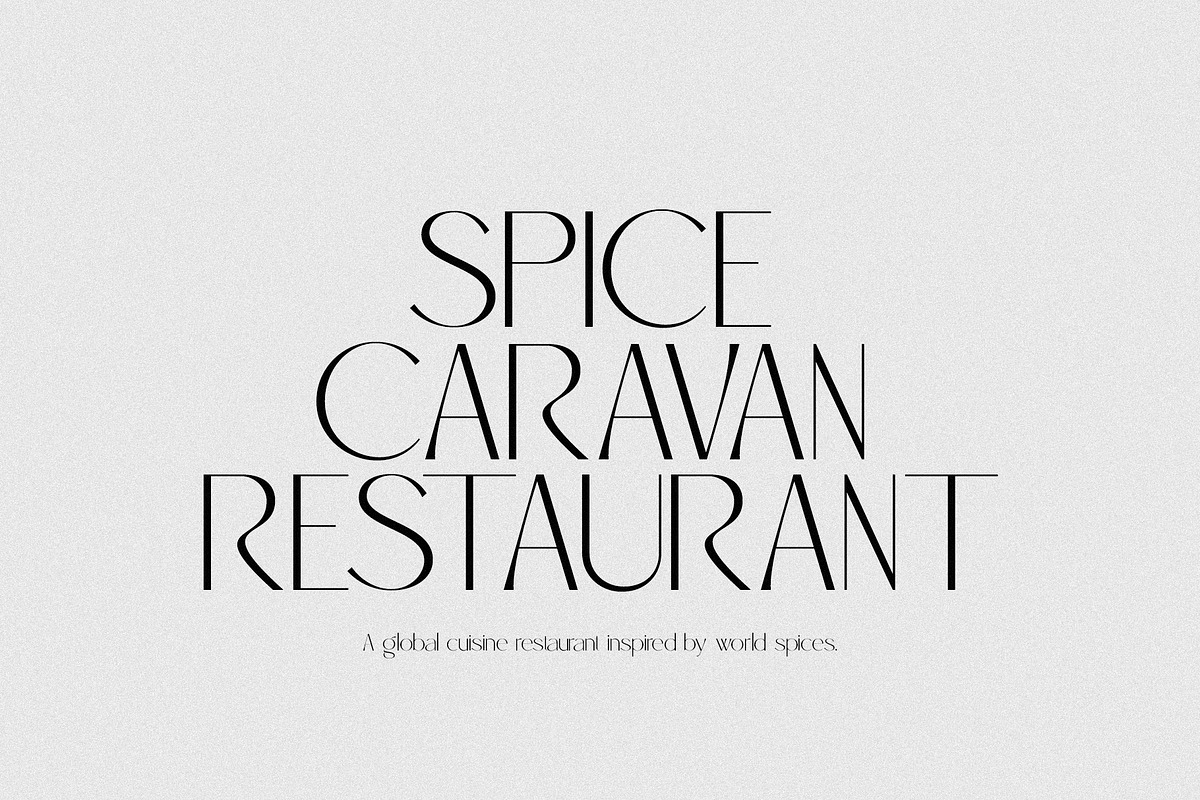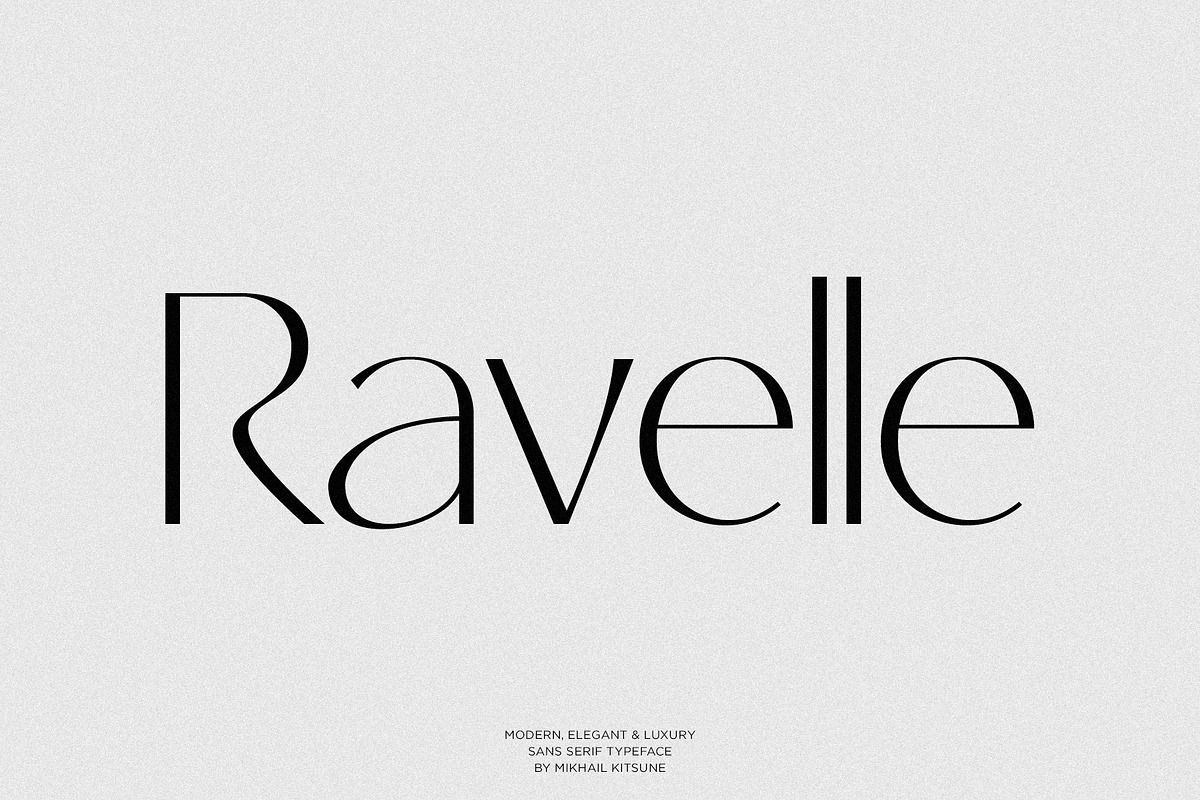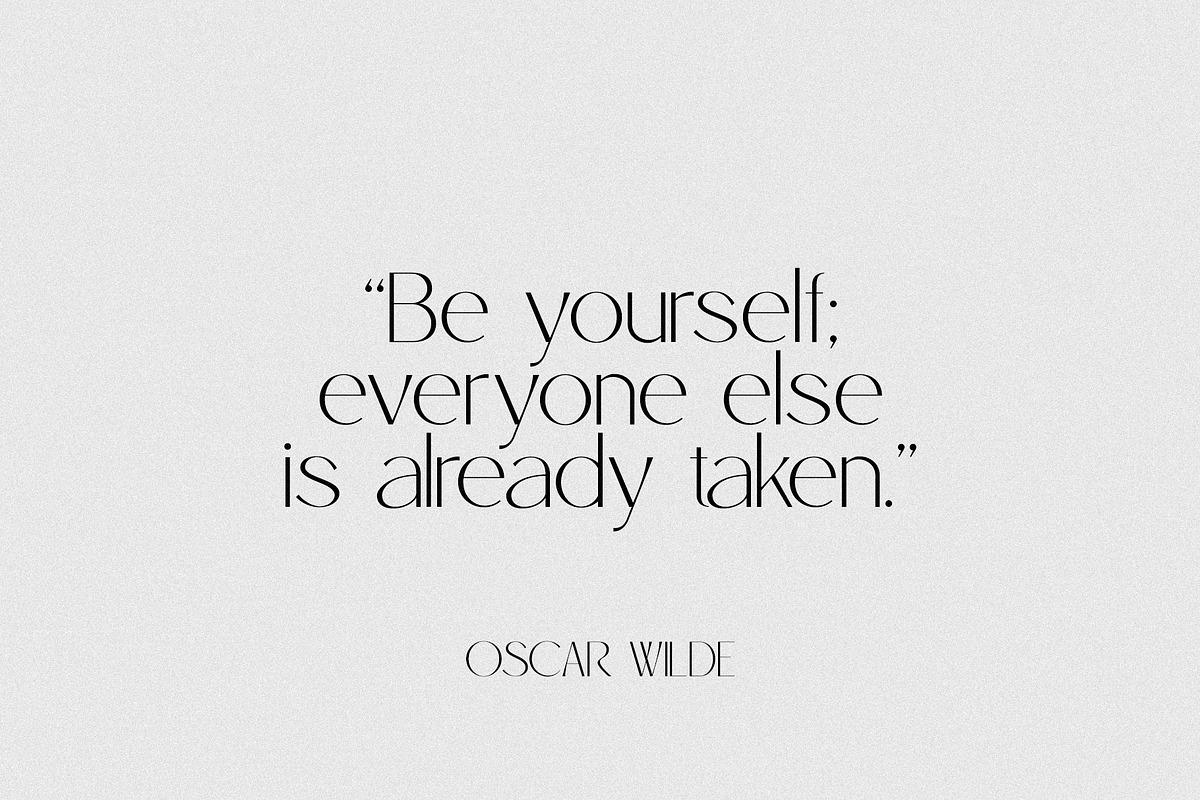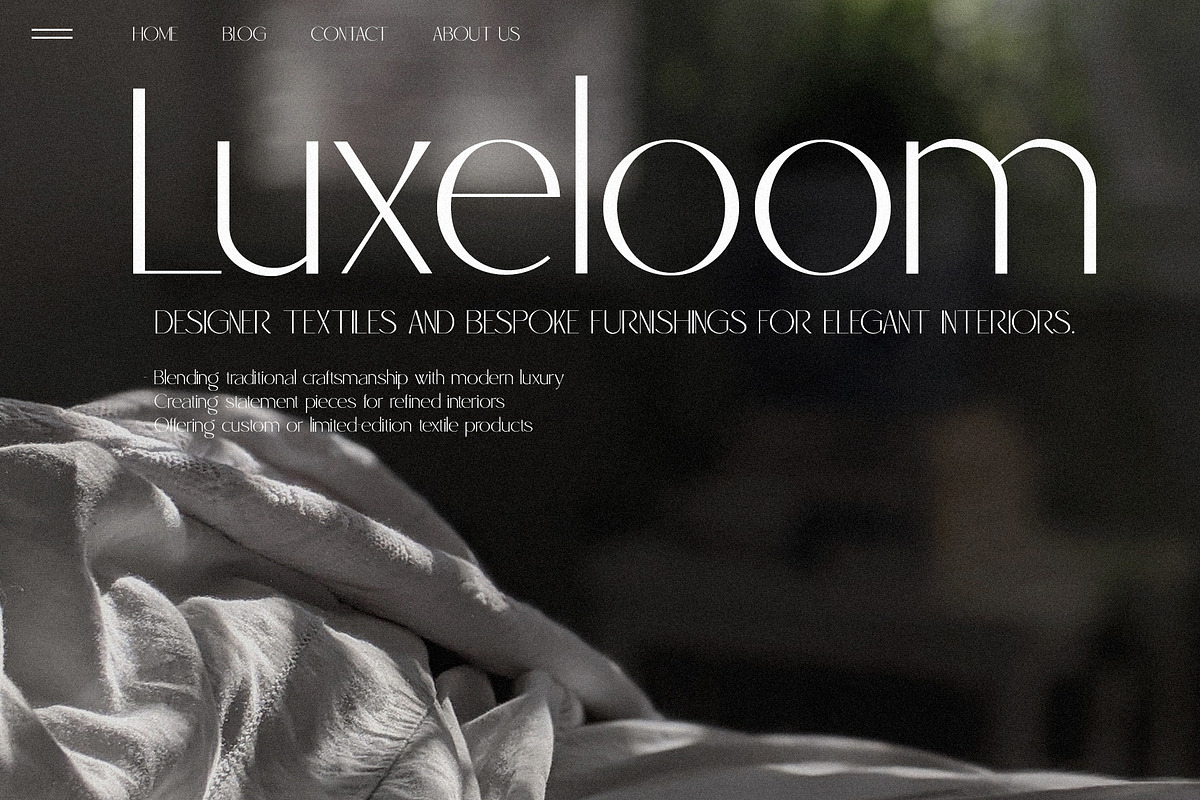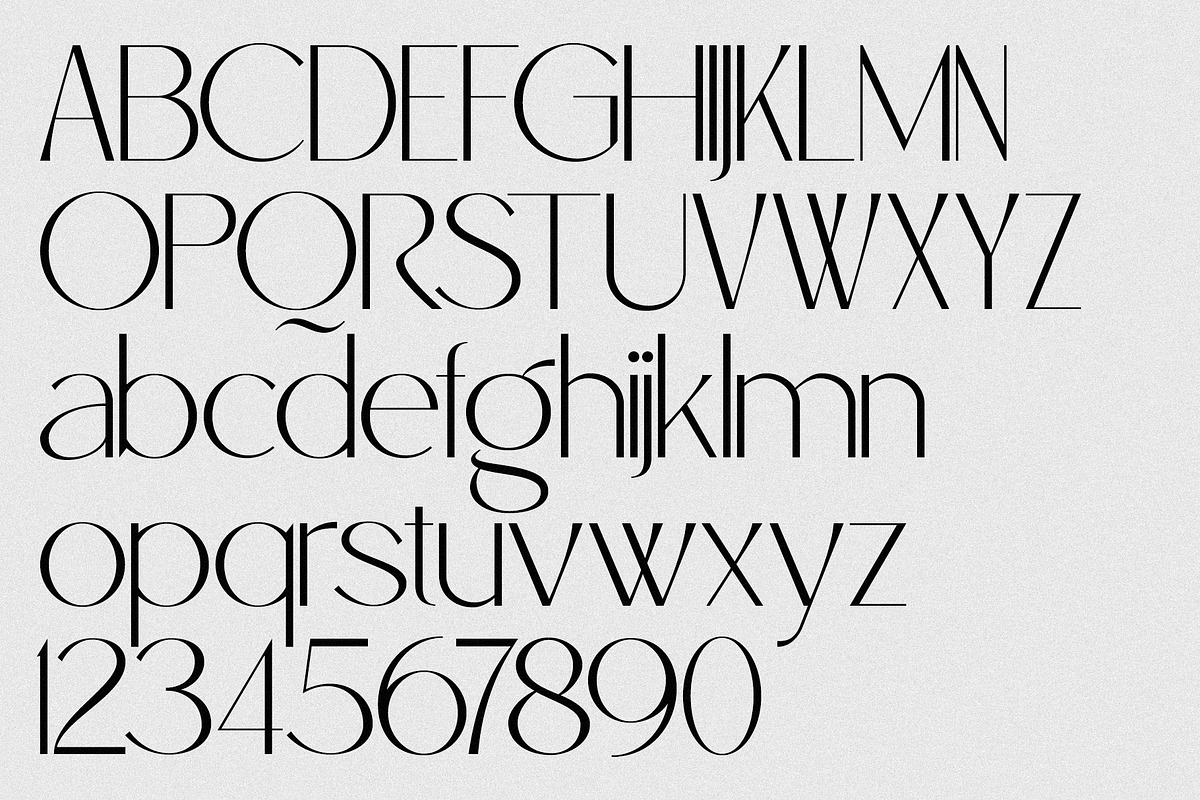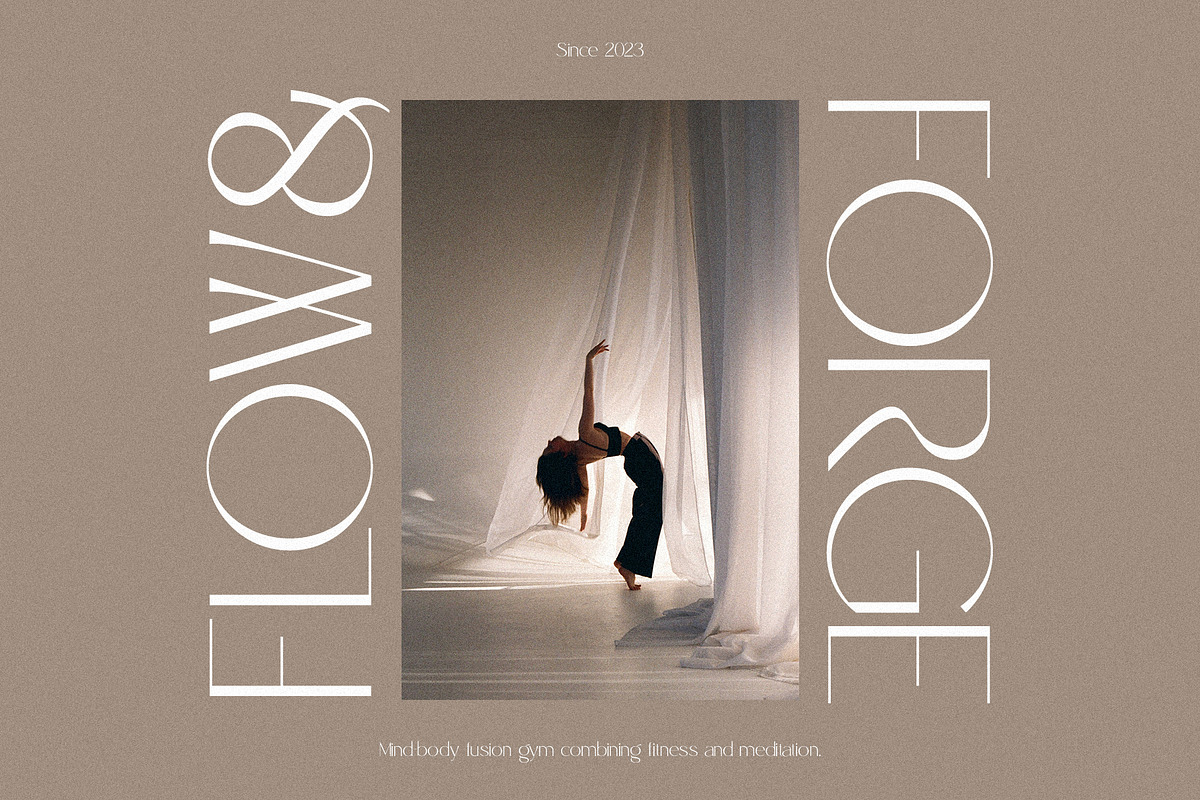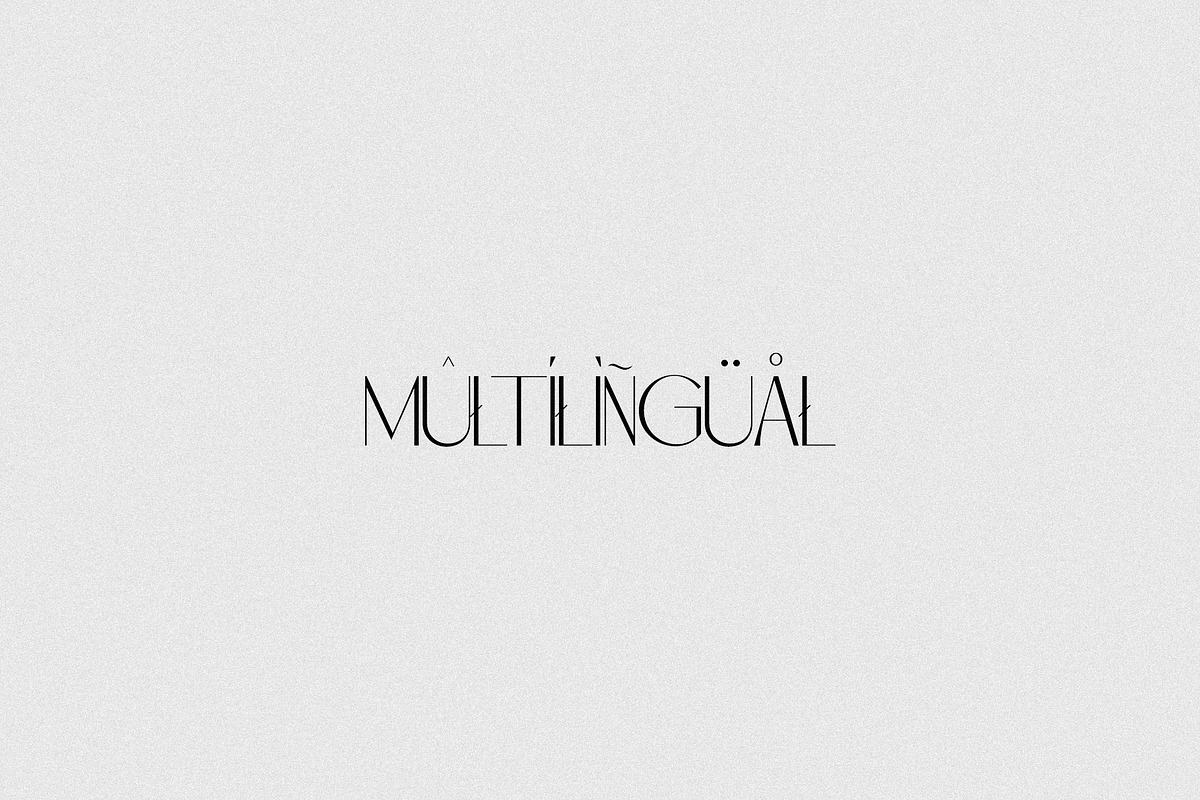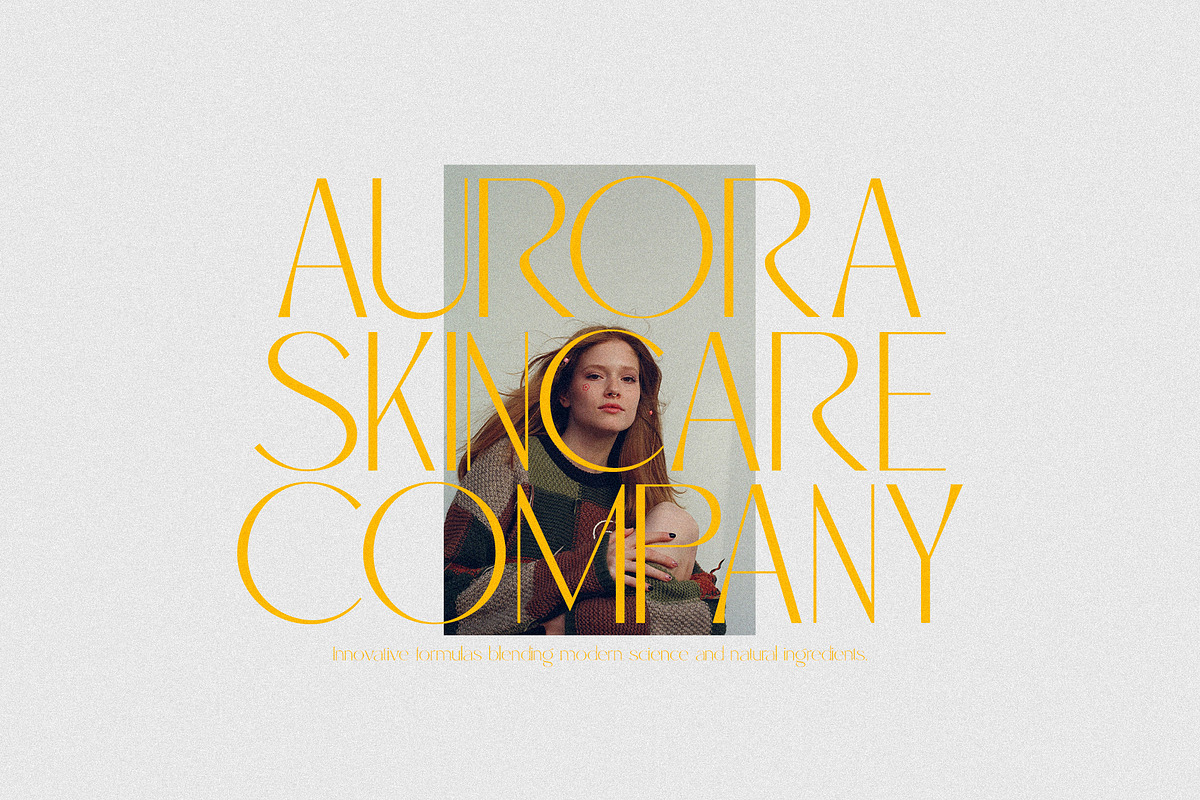
Ravelle - Elegant & Luxury Sans
Ravelle is a modern luxury sans-serif typeface designed to embody refinement, clarity, and understated sophistication. With its clean lines, balanced proportions, and subtle stylistic nuances, Ravelle delivers a timeless aesthetic that feels both contemporary and exclusive. Crafted for designers who seek elegance without excess, Ravelle merges minimalist structure with high-end character, making it ideal for projects that demand a polished and distinguished voice.